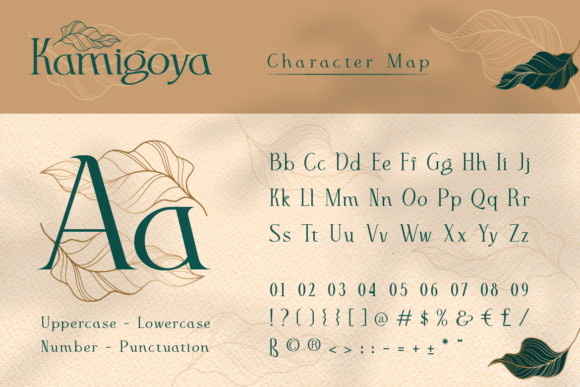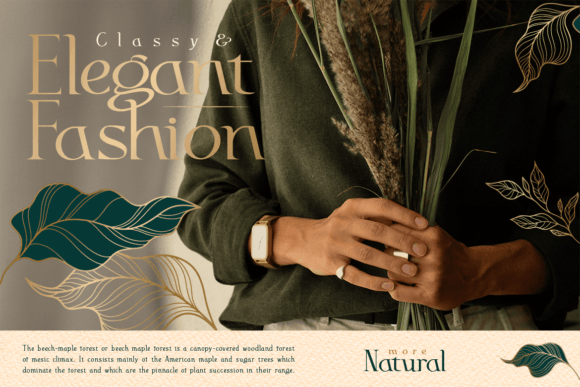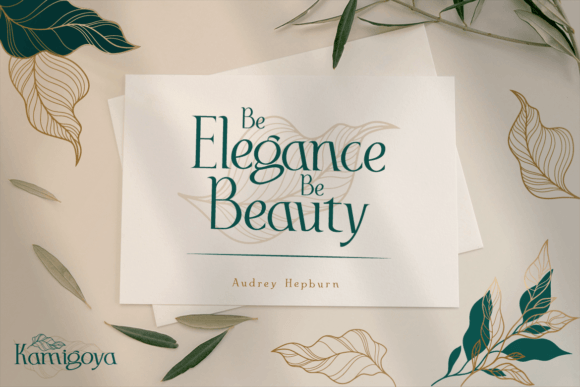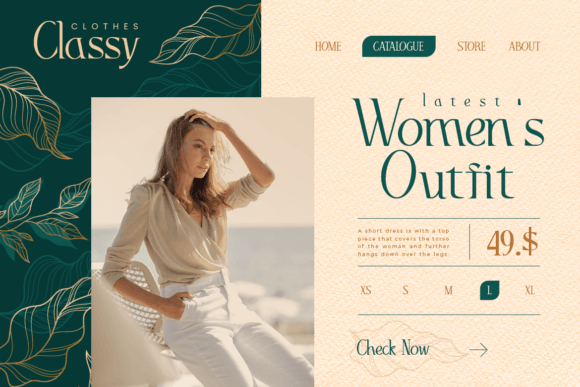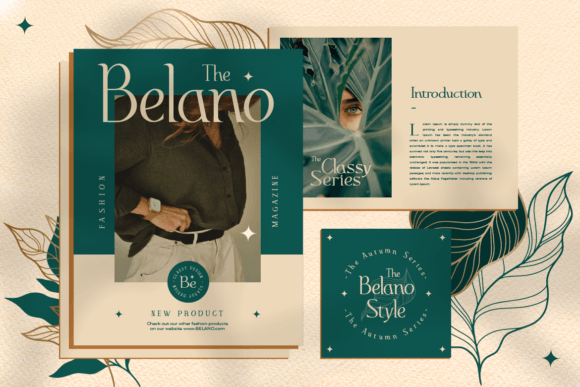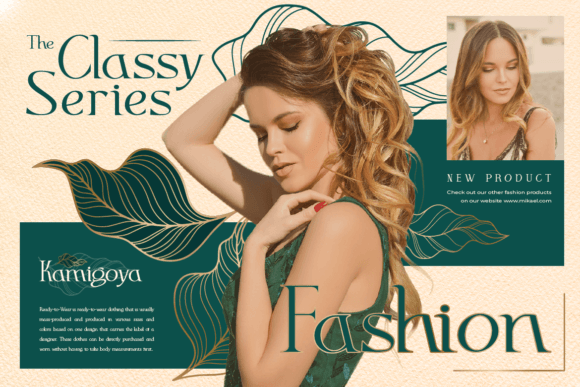
Introduction to Kamigoya Font Font
Fonts play a crucial role in design, and the Kamigoya Font font is a typeface that brings both character and versatility to any project. Whether you’re working on a branding project, a website, or a print design, the Kamigoya Font font offers a unique style that can elevate your work.
Kamigoya is a classy serif font with visual elegance, and smooth curves, making your work look really attractive.
This font is great for logo design, social media, book titles, or anything that needs a stylish touch .
Key Features of Kamigoya Font Font
Why Choose Kamigoya Font Font?
The Kamigoya Font font is more than just a typeface – it’s a design tool that helps you communicate your message with style and clarity. Its unique character set and versatile design make it suitable for a wide range of applications, from elegant invitations to bold headlines.
With its carefully crafted letterforms and balanced proportions, the Kamigoya Font font ensures readability and visual appeal across all mediums.
What makes Kamigoya Font font special?
The Kamigoya Font font stands out with its unique design, exceptional readability, and versatility across various design applications.